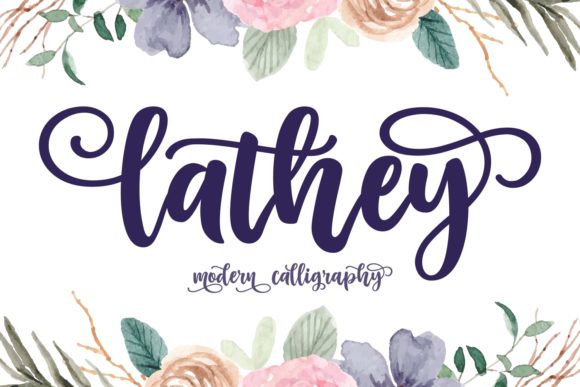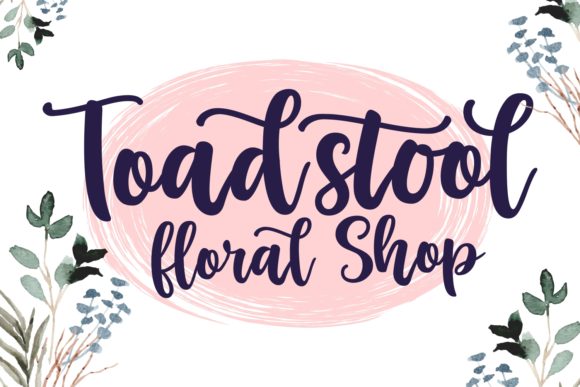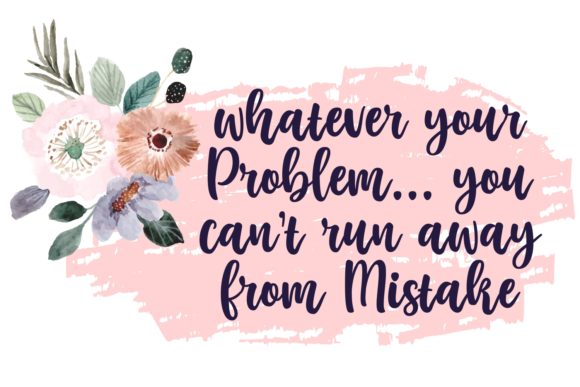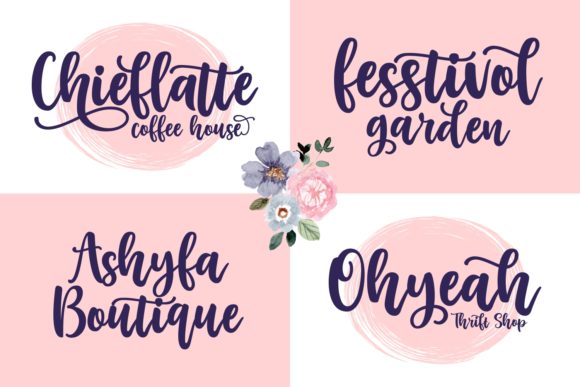
Lathey Font
About Lathey Font
Lathey is a cute and casual handwritten font with an incredibly friendly feel. It features gorgeous swashes and ligatures that make this script incredibly versatile. Lathey is the perfect font for making original and outstanding designs!